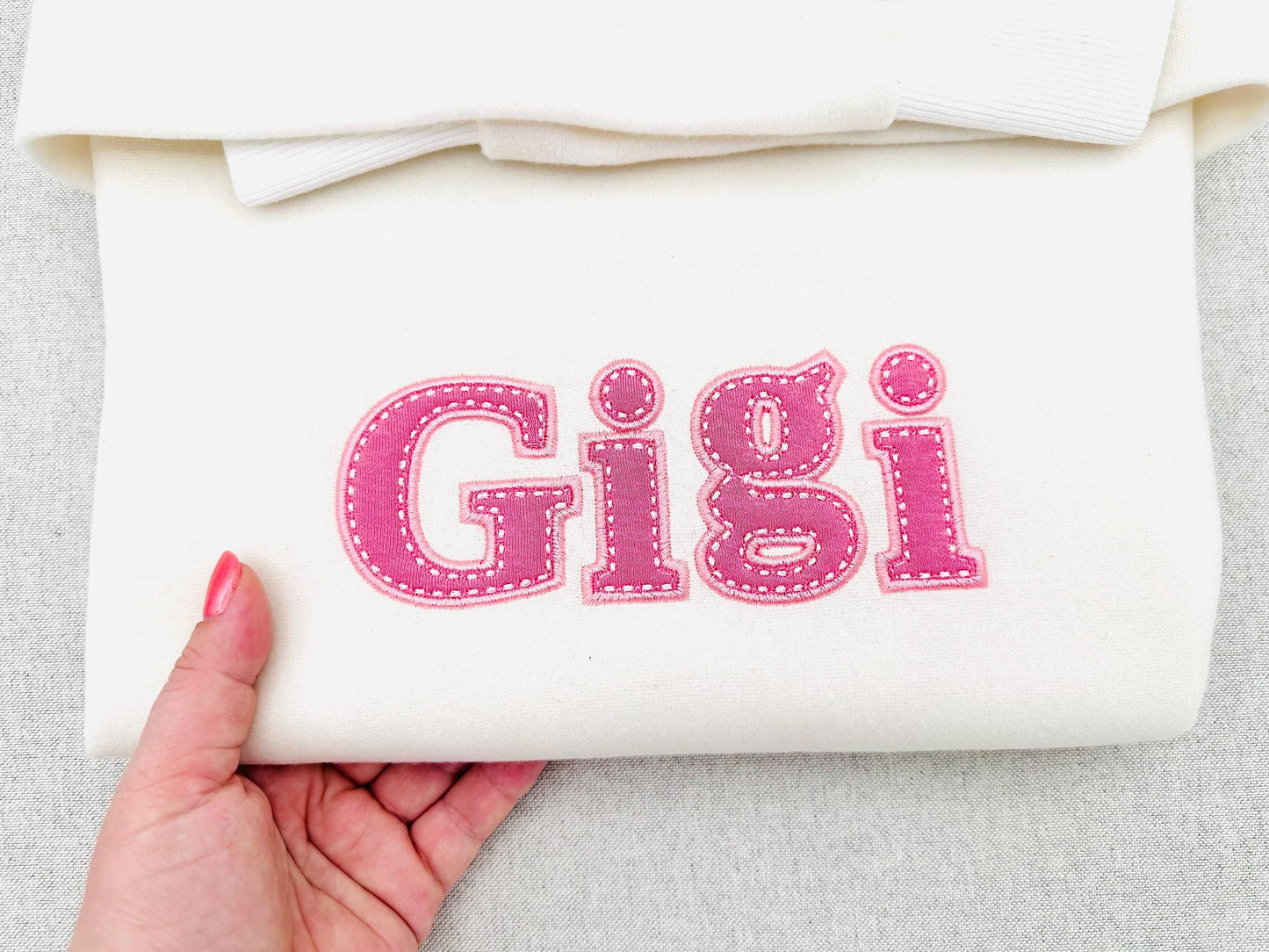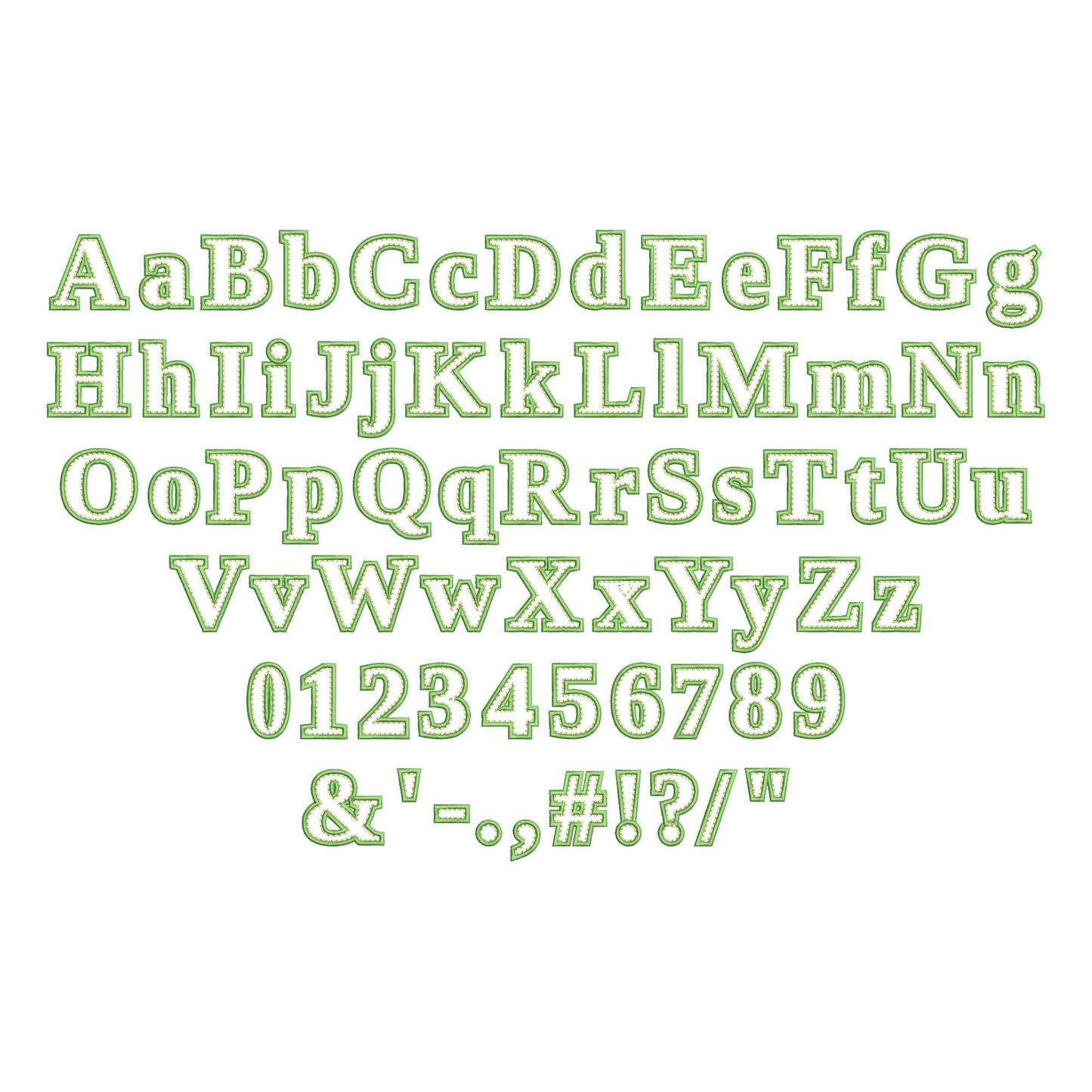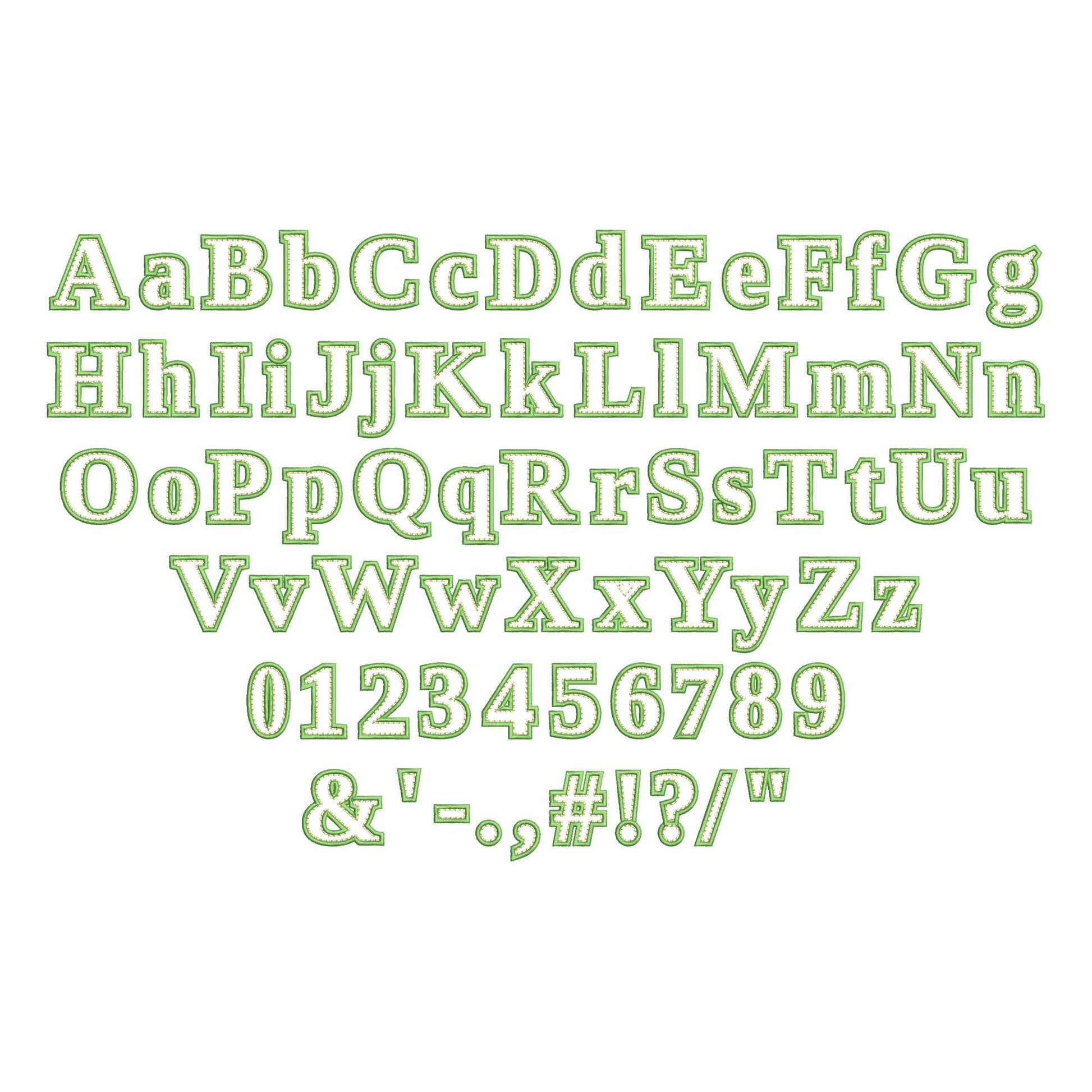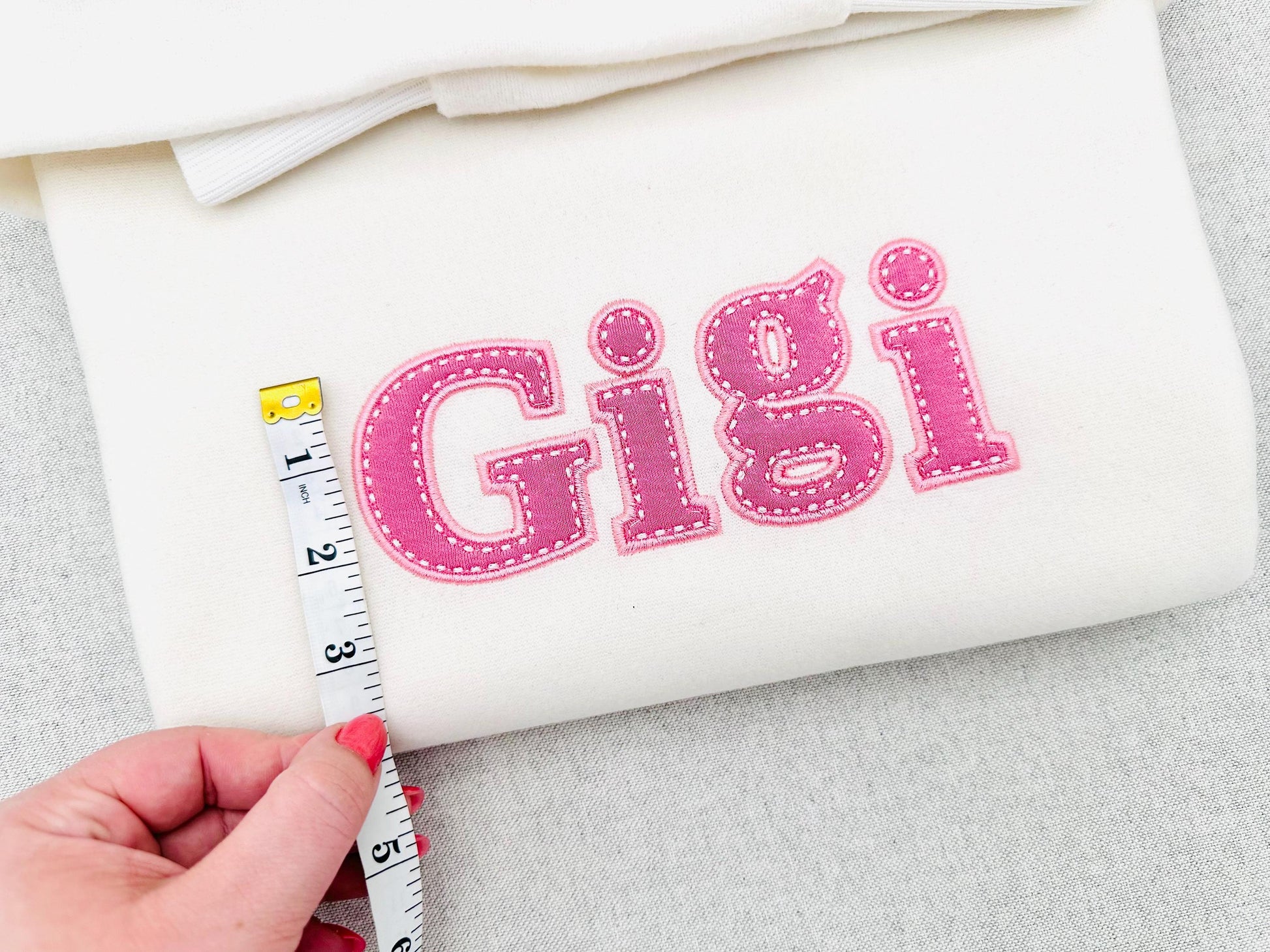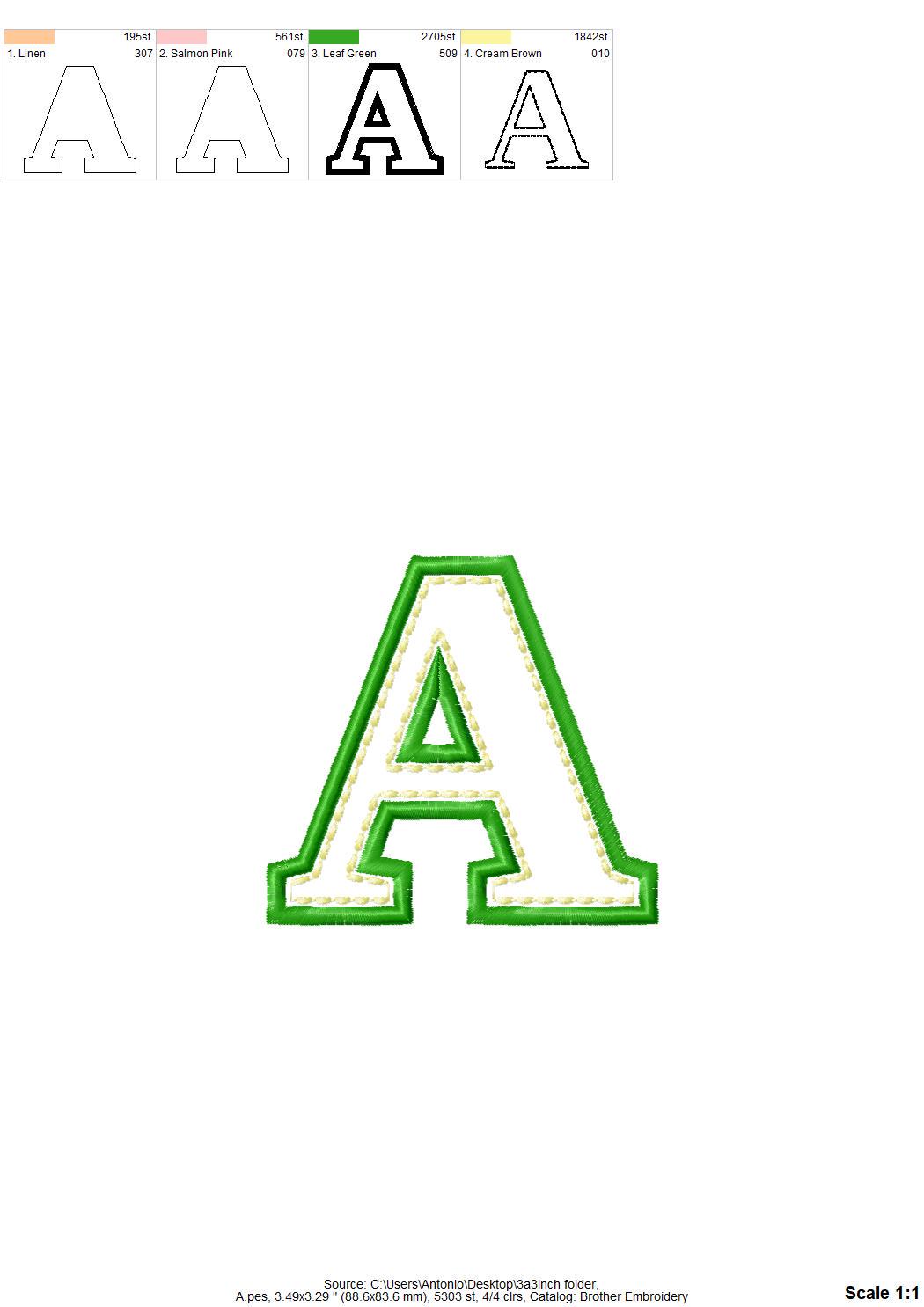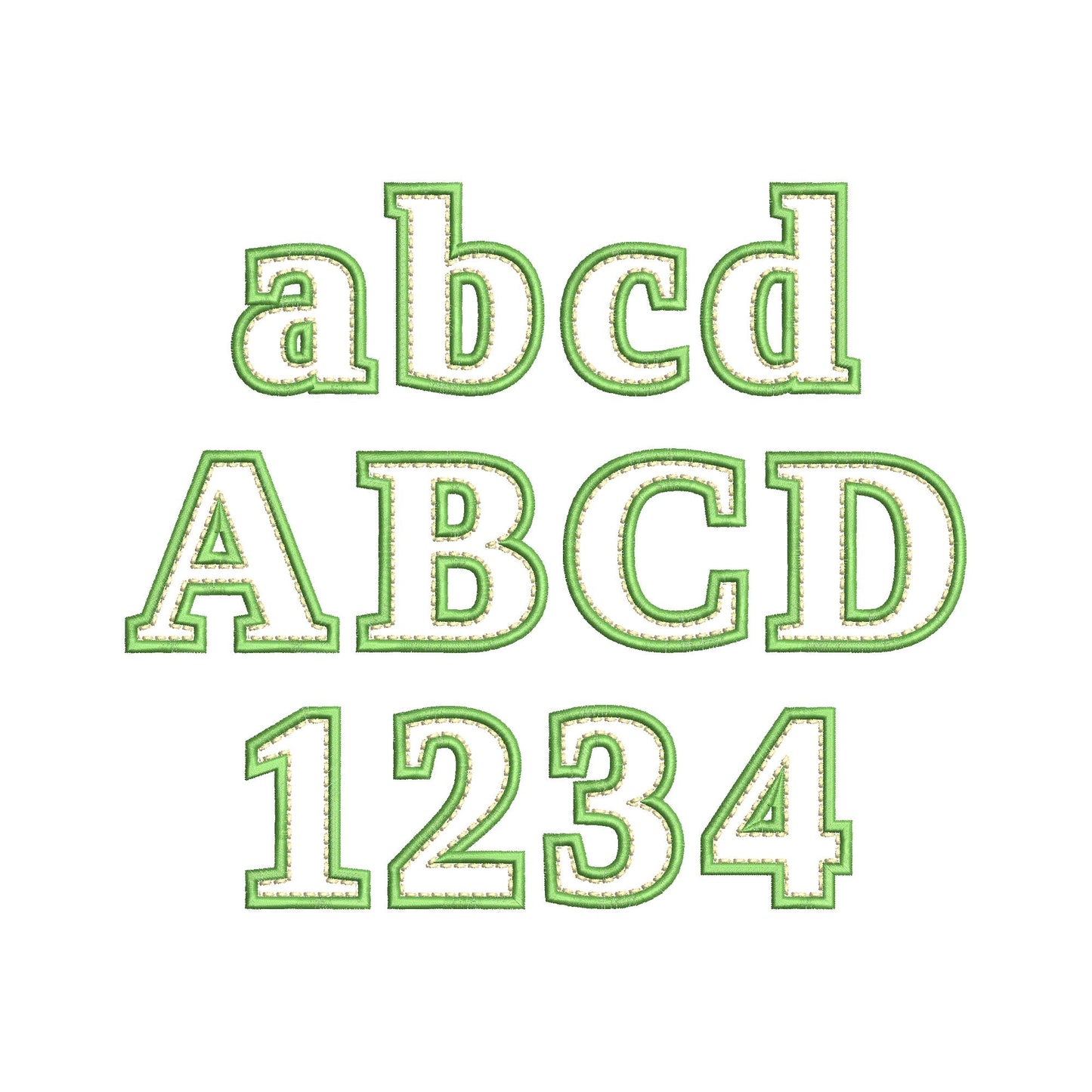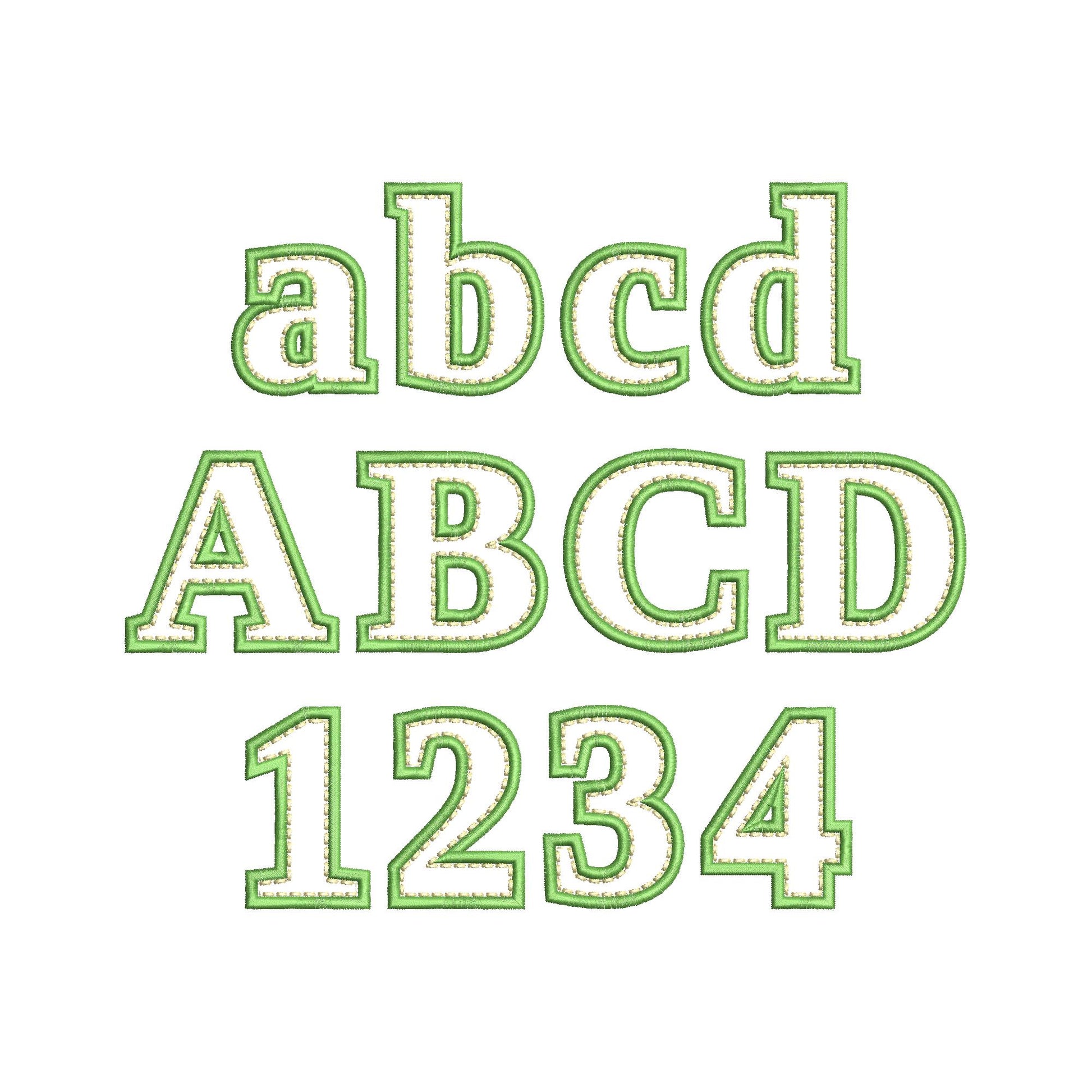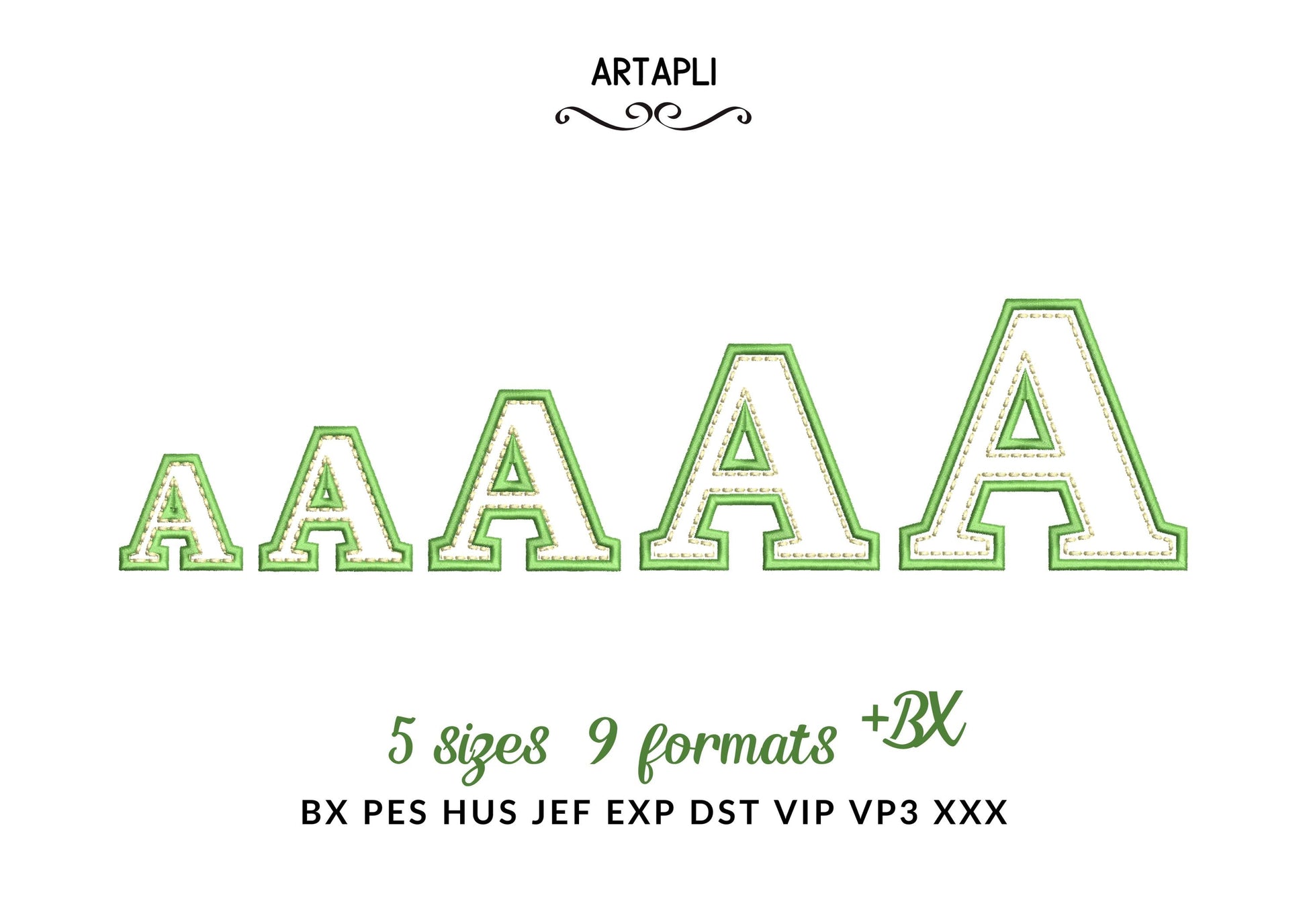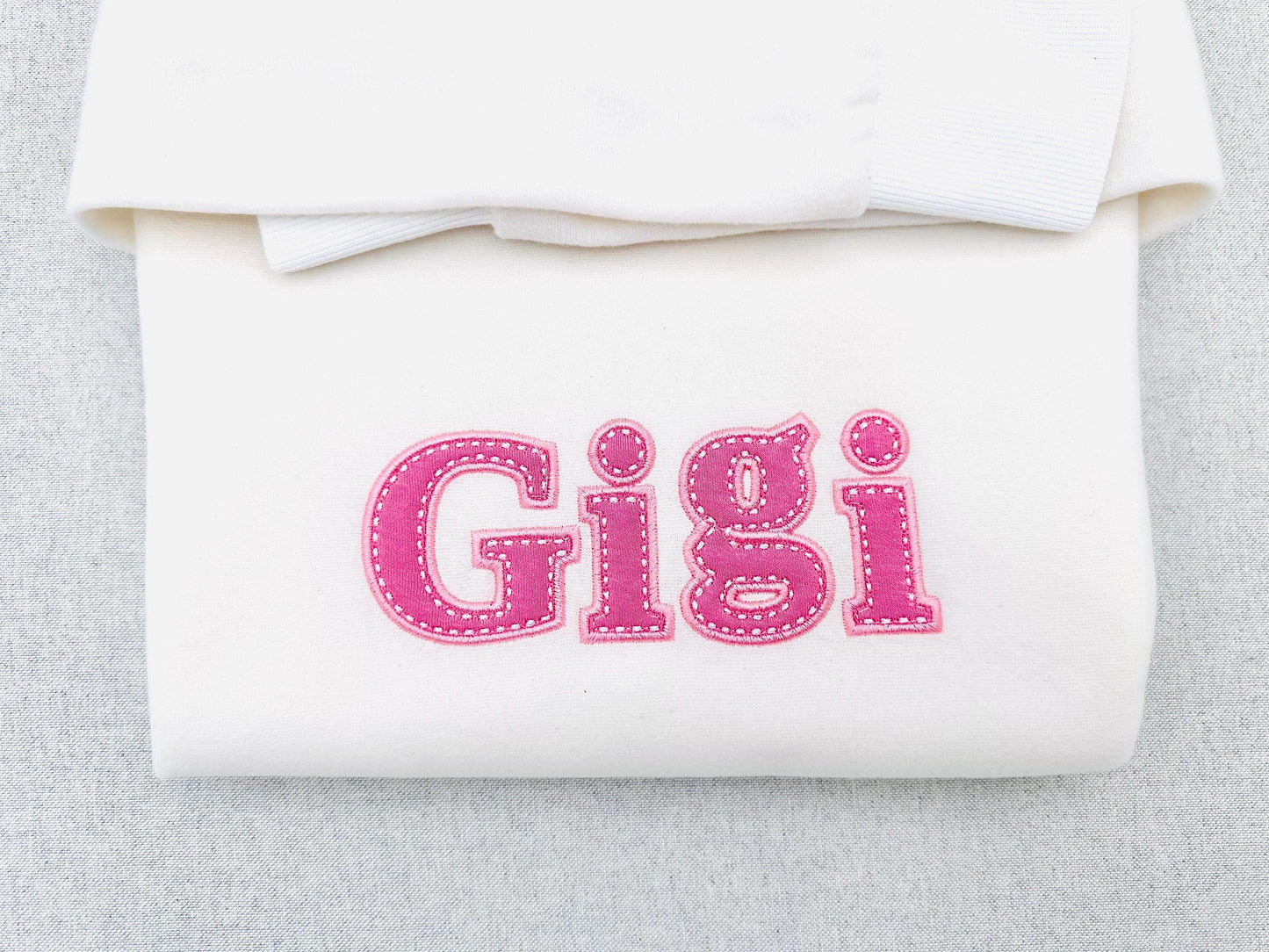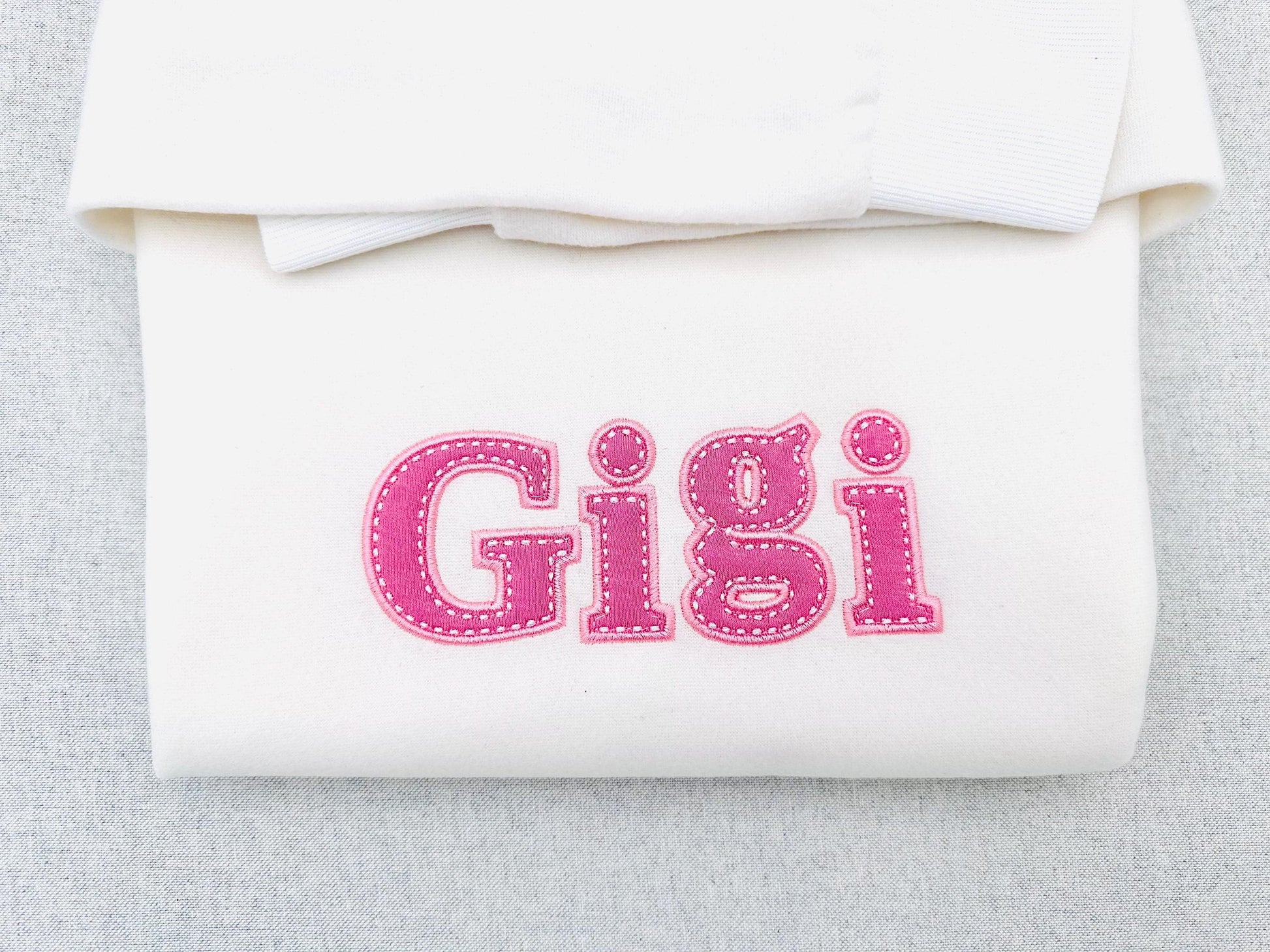
Or click to open the linkAn applique font with a wide satin outline and a second hand-stitch outline for a charming handmade look. Lovely for names and monograms on sweatshirts, pillows, blankets and bags.
The letters come in five sizes: 1.7, 2.1, 2.6, 3.3 and 4 inches. Includes uppercase and lowercase letters, numbers 0-9 and punctuation.